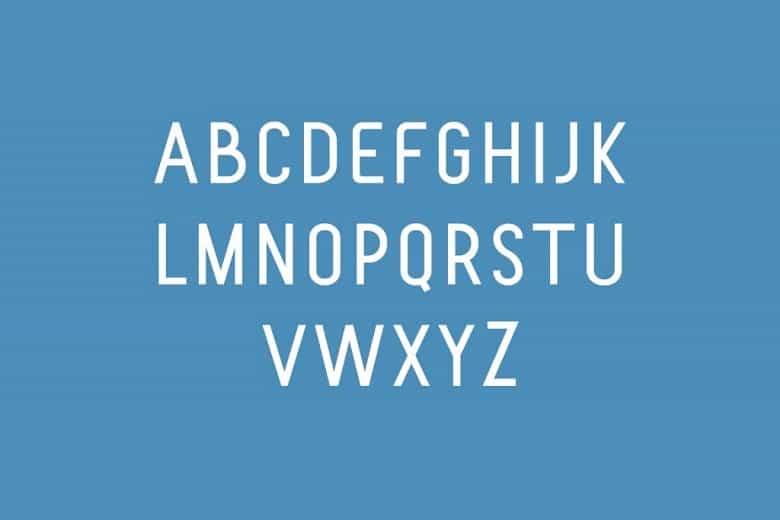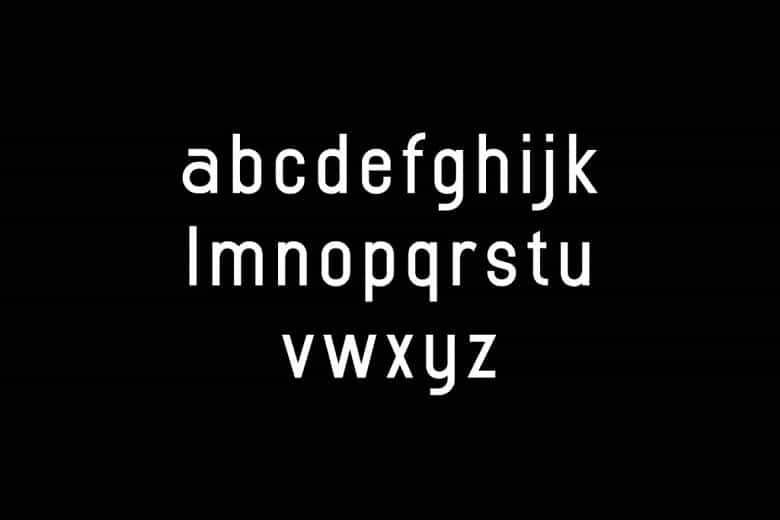
Equivolition is modern sans serif font family that Looks elegant, classy and stylish in the contemporary design. This font is versatile that it can be used for nearly every project and will include signature, stationery, logo, wedding, quotes and typography, magazine or book covers, headers for websites, branding, and other projects.